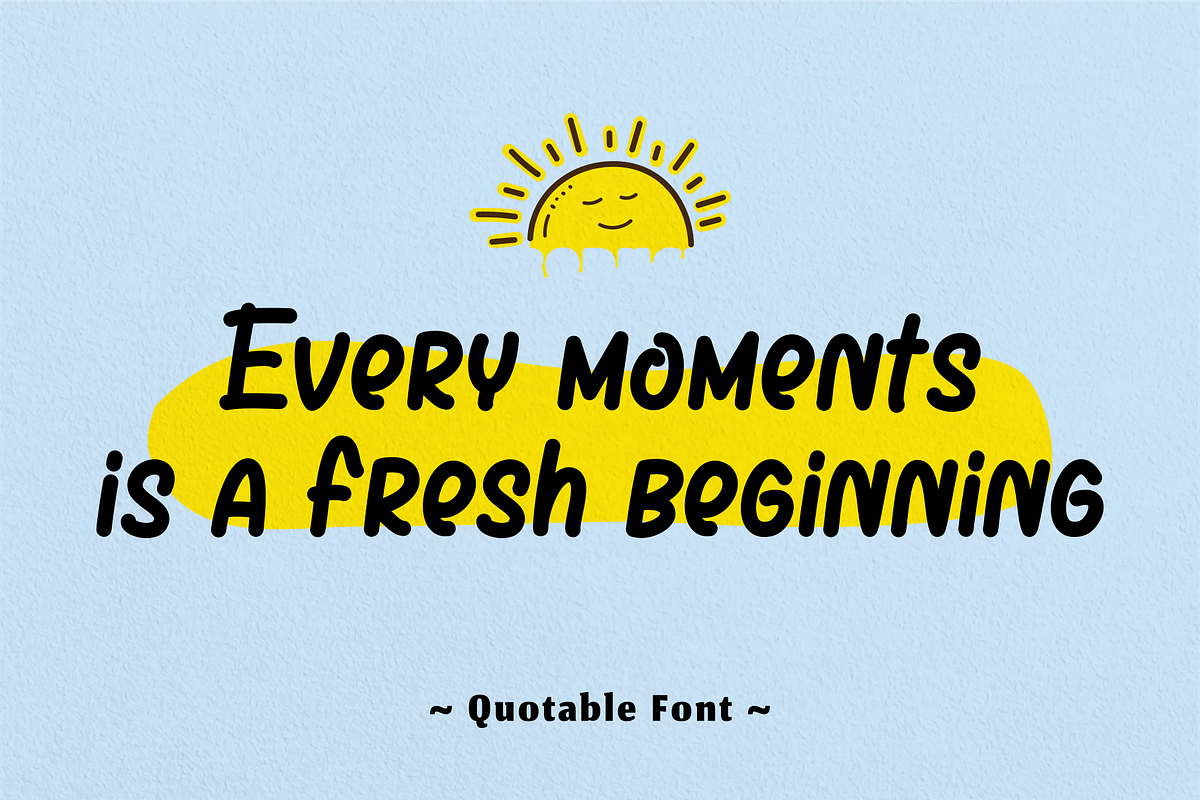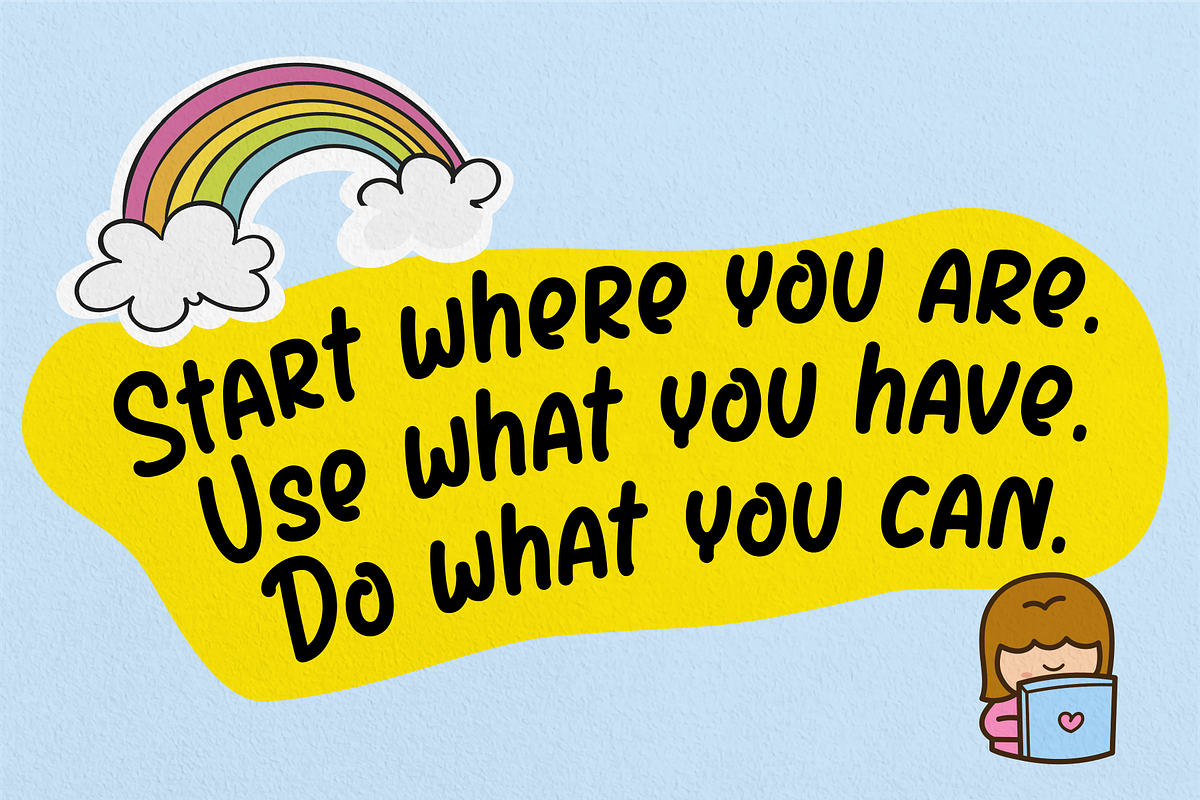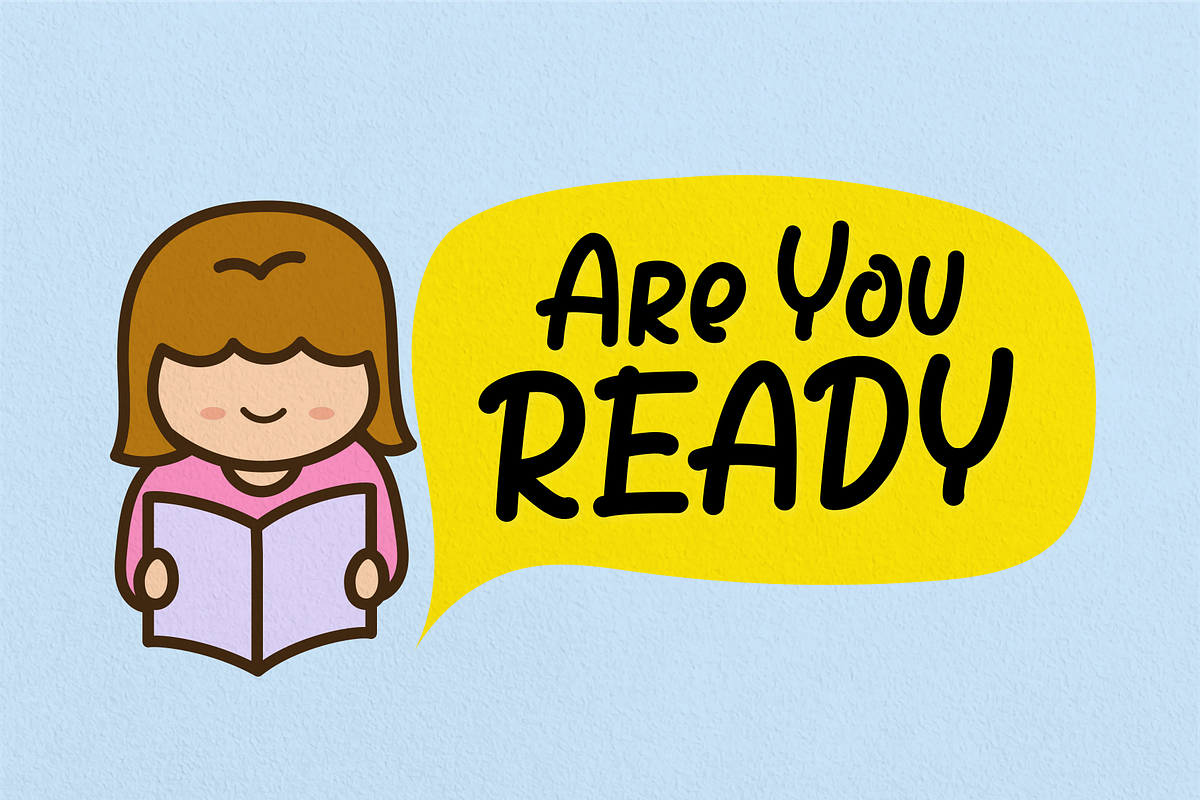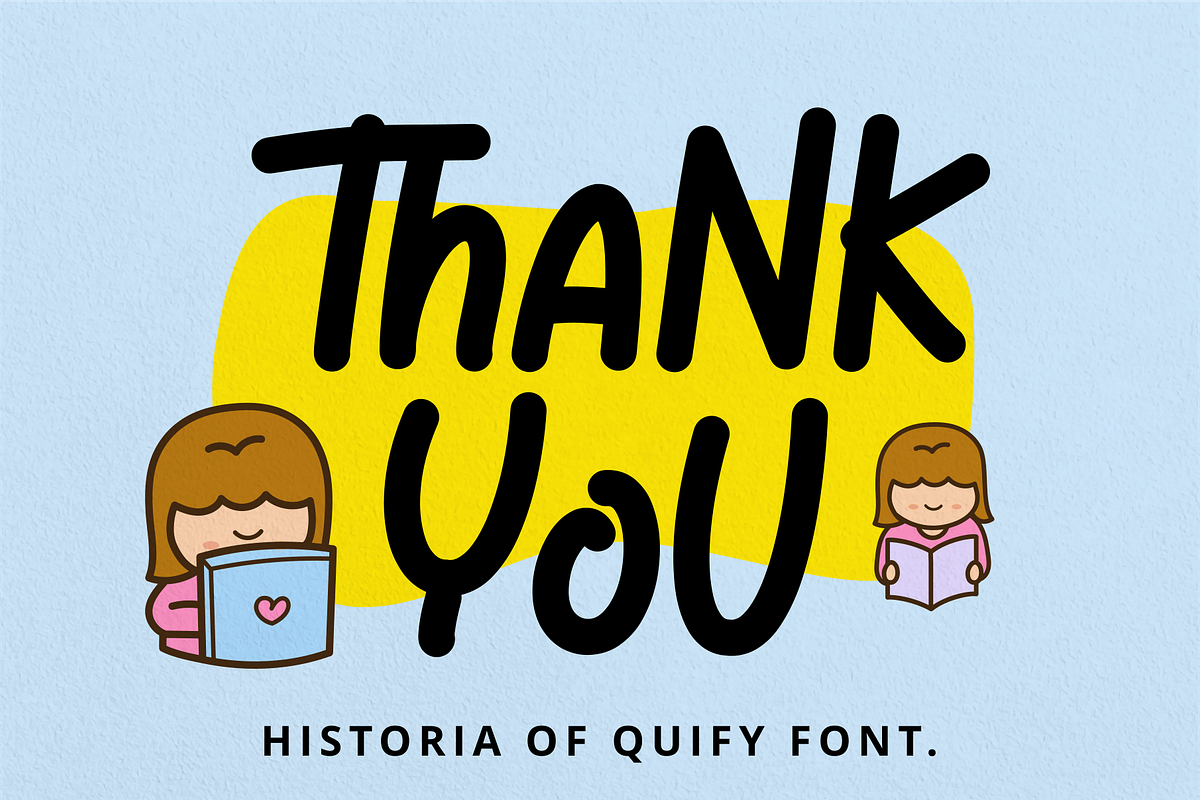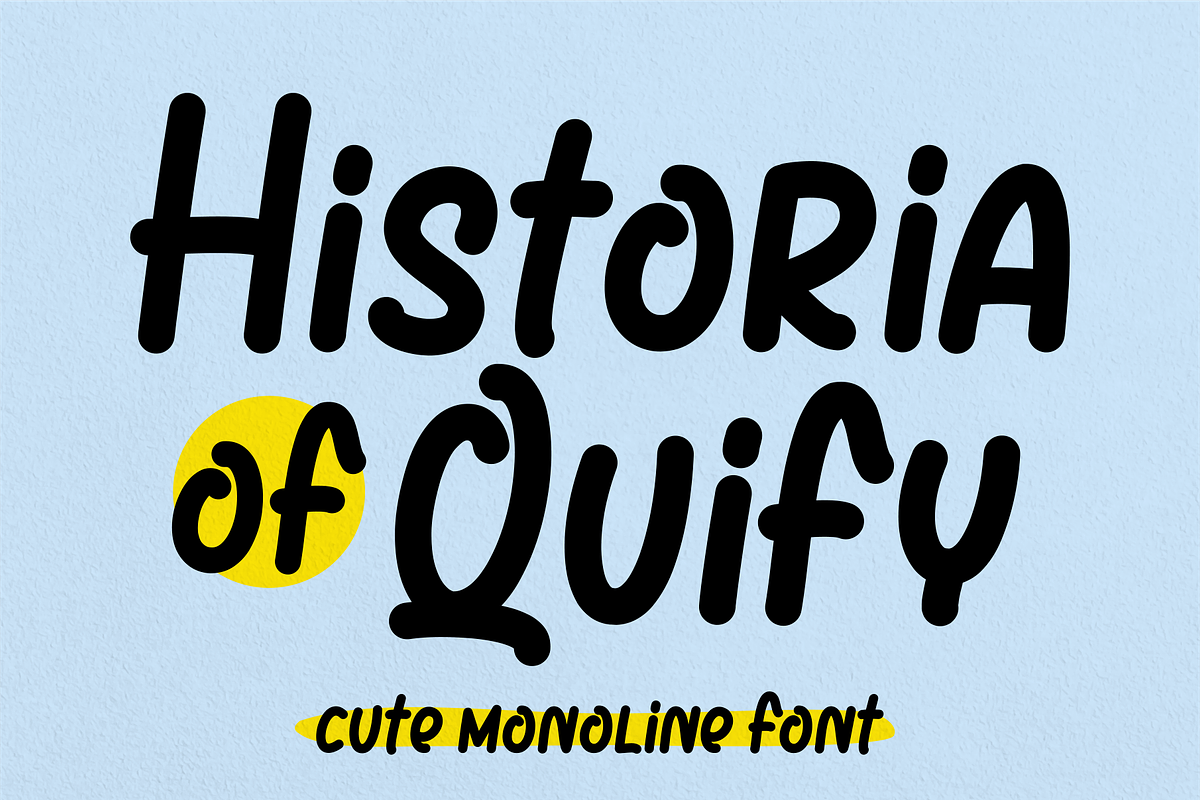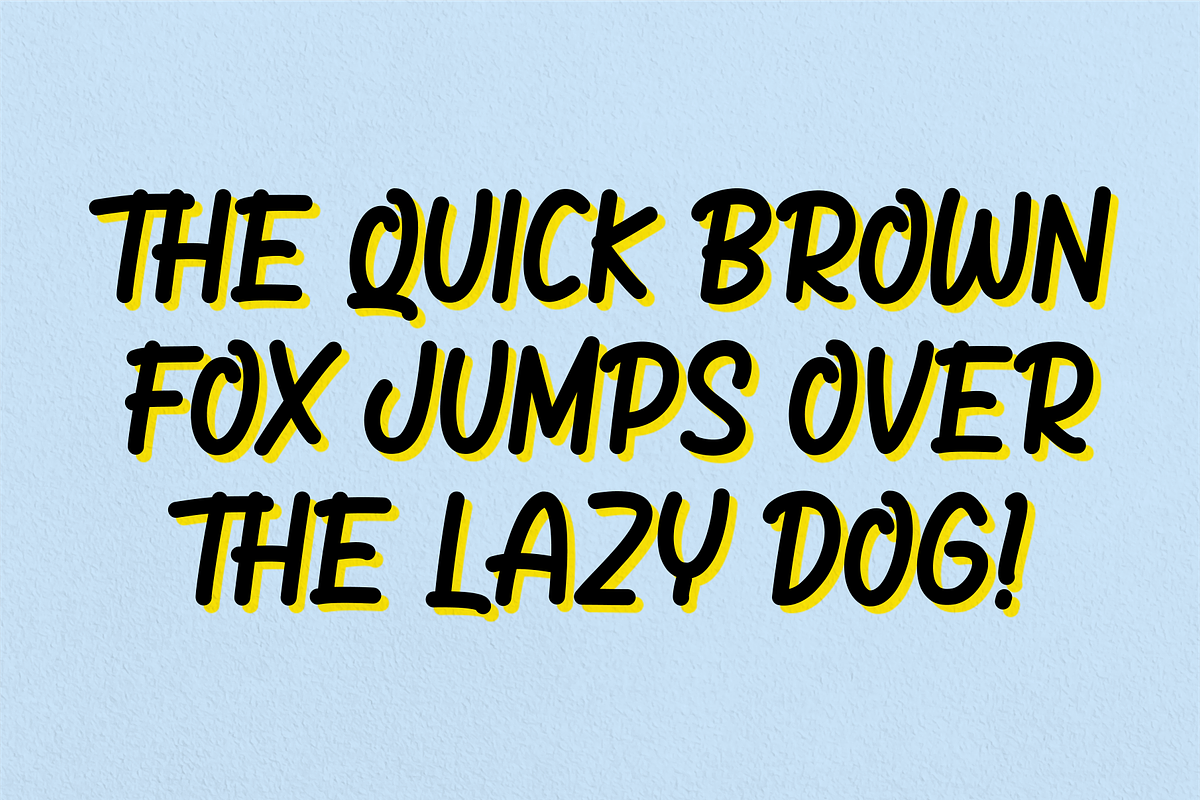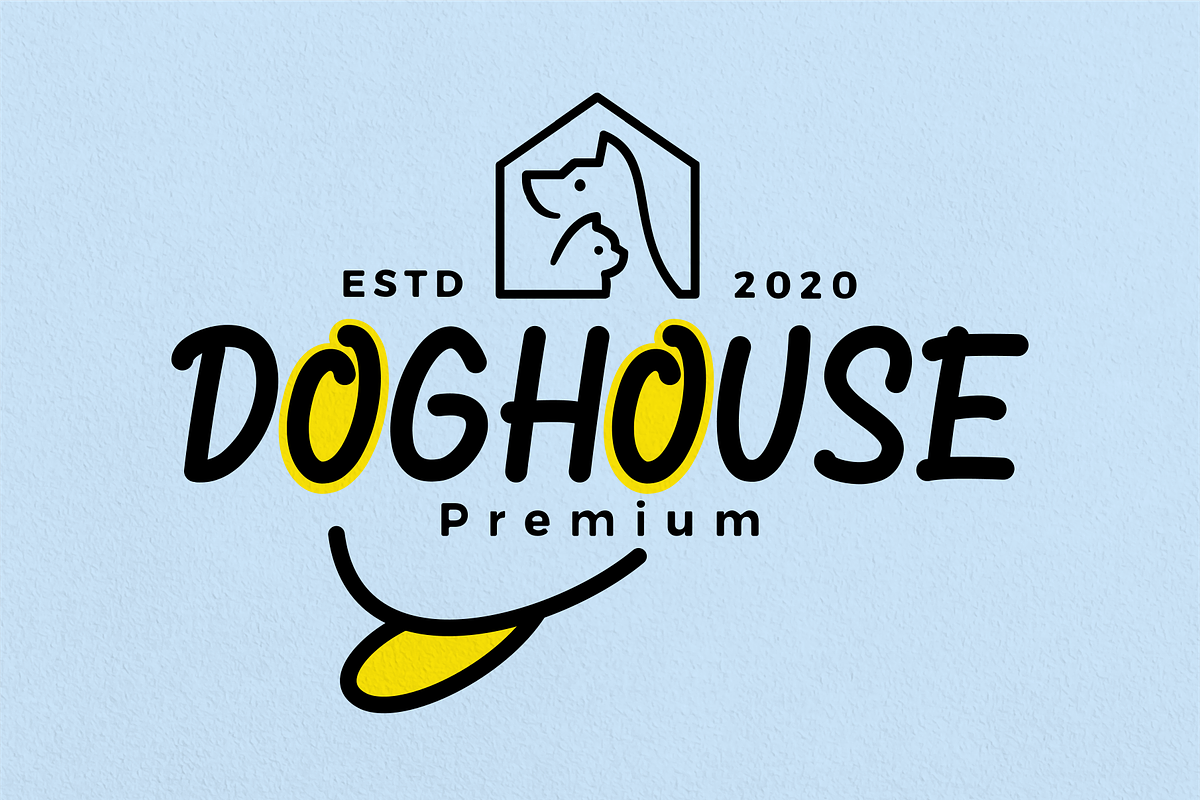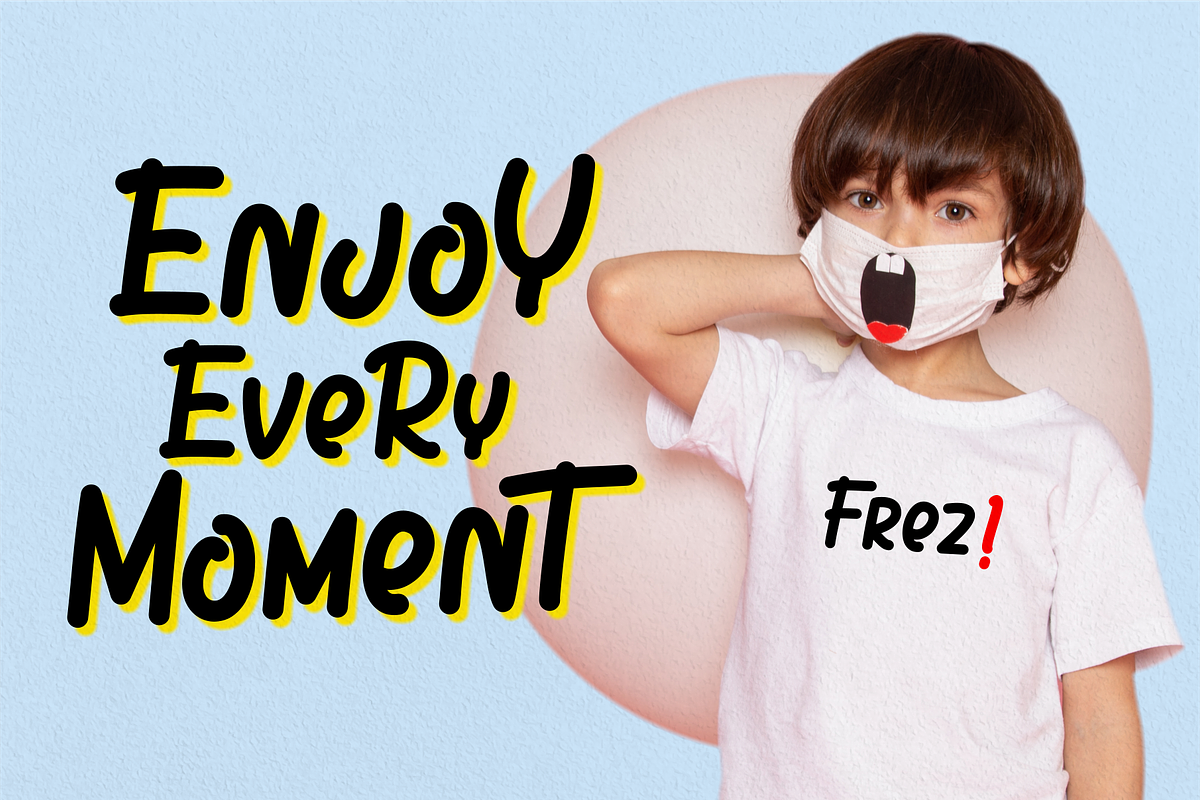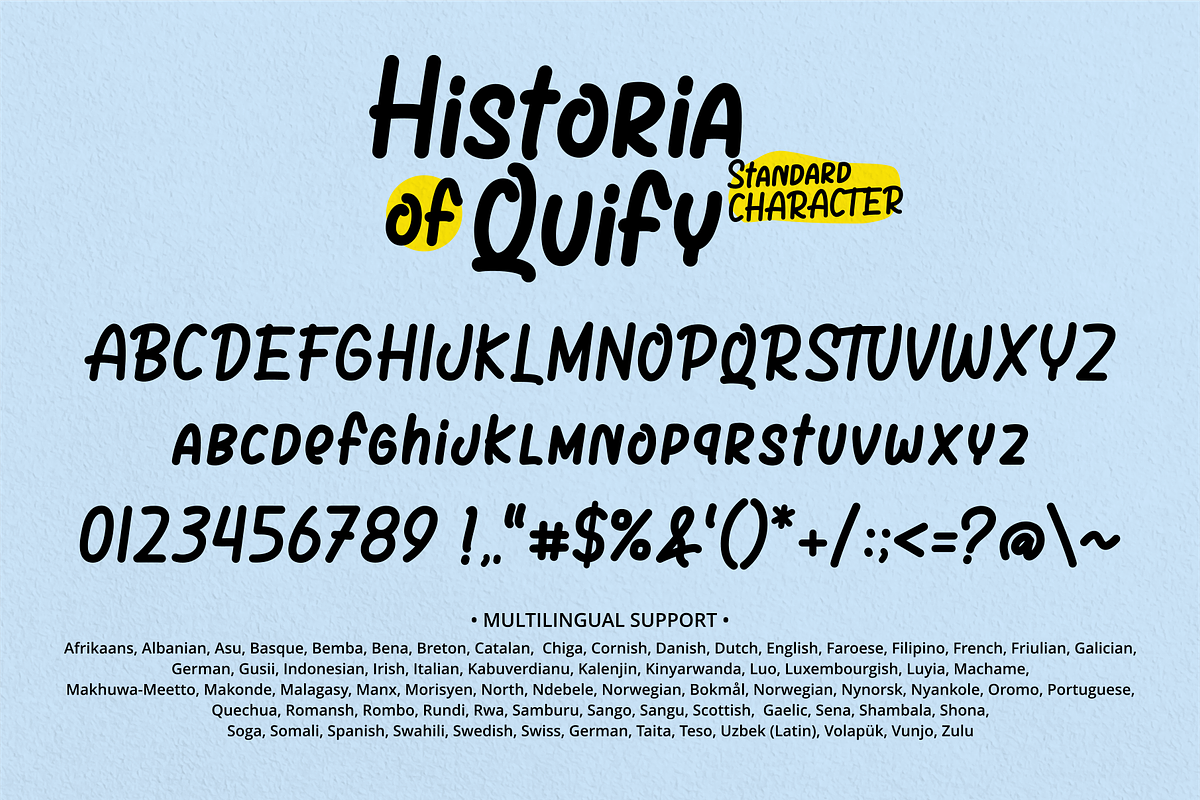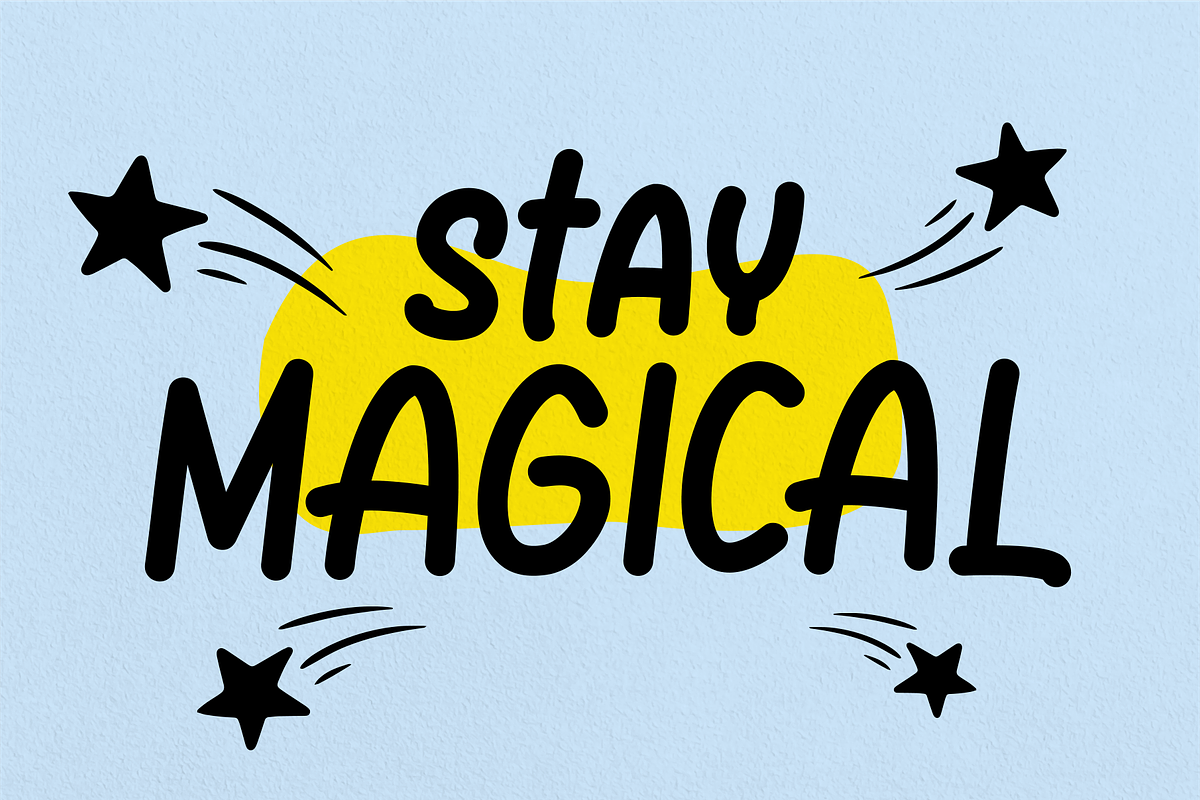
Historia of Quify
Historia of Quify is a monoline font with a playful twist! Its strokes maintain a consistent thickness throughout, giving it a sleek and modern look. Yet, it adds a touch of whimsy with its charming curves and quirky details, making it perfect for projects that need a dash of lightheartedness. This font effortlessly combines simplicity with a sense of fun, making it a delightful choice for anything from invitations to posters.